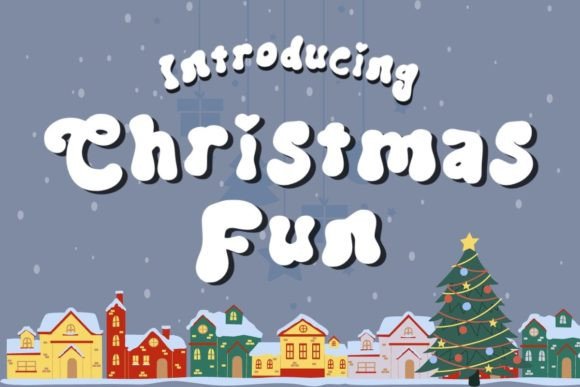
Prepare yourself for a yuletide season like no other with the dazzling Christmas Fun Duo Font! This extraordinary font duo is meticulously crafted to ignite the festive spirit in your holiday designs. Bathed in the colors of Christmas cheer, this font duo boasts an enchanting display font and a captivating decorative font, working together to paint a picture of winter wonderlands and joyous celebrations.
Unleash the magic of the Christmas season with every letter you type, leaving an unforgettable impression that radiates warmth and cheer. The display font evokes the twinkling lights adorning Christmas trees, while the decorative font dances like snowflakes in the winter breeze. Together, they weave a tale of festive artistry, capturing the essence of Christmas like never before.
Welcome the season of giving with a font duo that echoes the joy of exchanging gifts. Create stunning Christmas cards that carry heartfelt messages, design wrapping paper that reflects the magic of the season, and craft unique gift tags that add a personal touch to each present. Let your creativity run wild as you explore the endless possibilities of this font duo, transforming your designs into true masterpieces of holiday cheer.
But the Christmas Fun Duo Font isn't just for Christmas cards and wrapping paper. It's an artistic chameleon that effortlessly adapts to a myriad of projects, bringing festive charm to every corner of your creative endeavors. Embellish your winter-themed illustrations, add a touch of whimsy to your social media posts, or elevate your website with an infusion of Christmas magic. The possibilities are as boundless as your imagination.
With the Christmas Fun Duo Font, you'll discover a world of creative freedom, where every design becomes a celebration of the season. Embrace the enchantment of Christmas and experience the joy of crafting truly captivating designs that spread holiday cheer wherever they go.